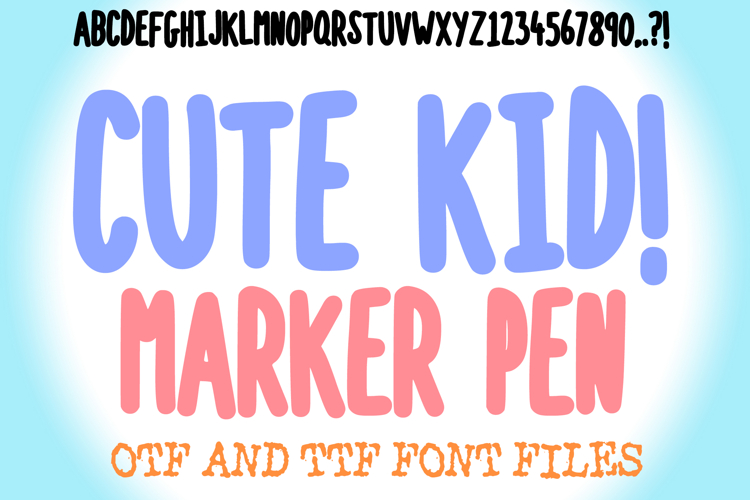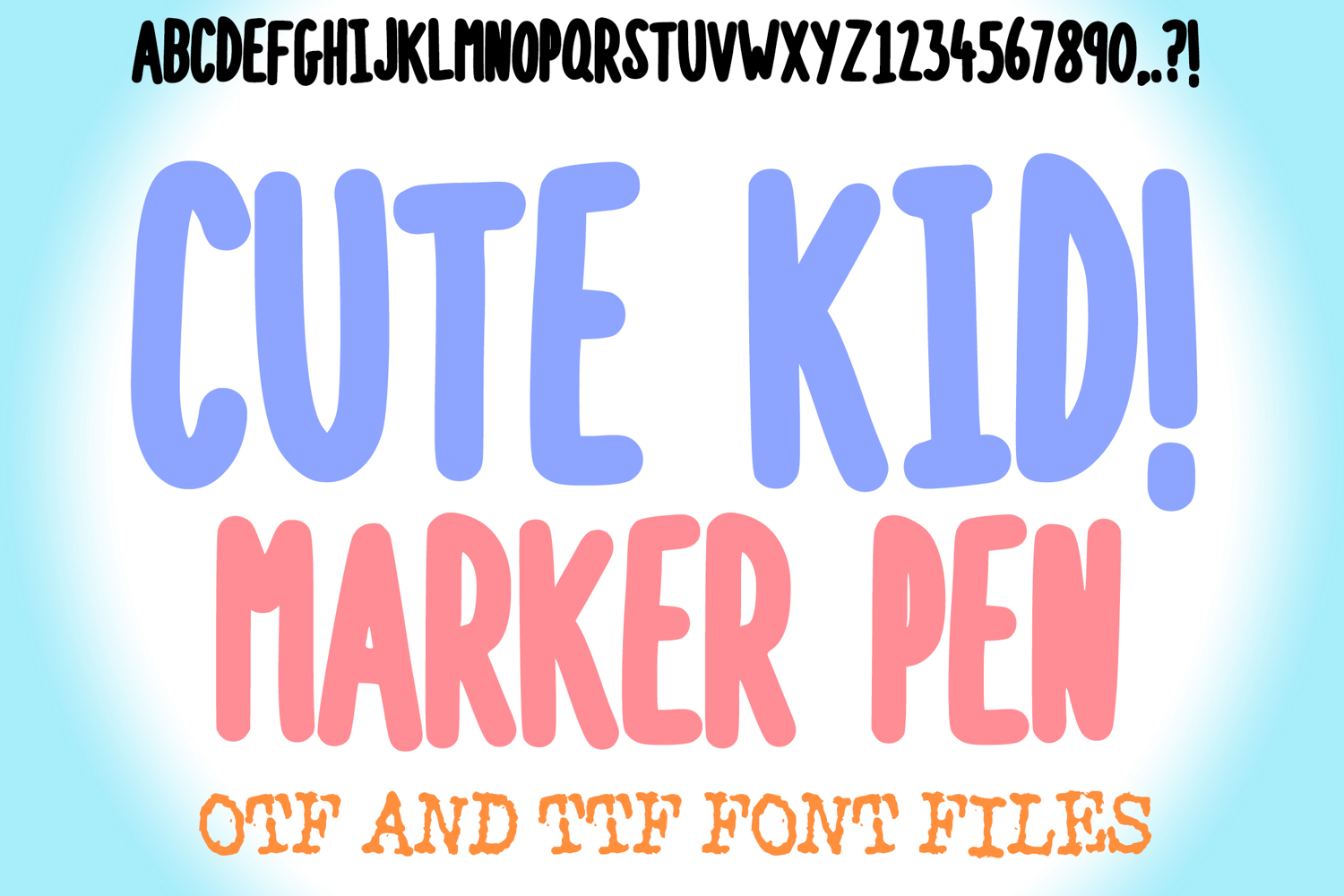
Cute Kid Marker Pen Lettering ABC Font Typeface Alphabet OTF
Unleash a wave of childlike wonder and effortless charm with Cute Kid Marker Pen Font! This delightful typeface perfectly captures the whimsical essence of a child's hand-drawn lettering, featuring friendly, rounded shapes that evoke the natural strokes of a marker pen. It's more than just a font; it's an instant burst of joy, designed to bring a touch of playful innocence and heartfelt warmth to any creative project.
Each character in Cute Kid Marker Pen Font is crafted with a clear, bold presence and a charming, slightly imperfect hand-drawn feel, as if written by a happy child. Its approachable, bubbly forms make it an ideal choice for children's books, nursery decor, educational materials, playful branding, greeting cards, or any design calling for a unique blend of simplicity and cuteness.
Whether you're creating invitations for a birthday party, designing labels for kid-friendly products, crafting cheerful social media posts, or adding a friendly touch to classroom resources, this font will bring an undeniable sense of fun and originality to your work. Its clear yet playful forms ensure readability while delivering a memorable visual experience.
If you're looking to infuse your designs with a sense of playful wonder, charming cuteness, and an undeniable happy vibe, Cute Kid Marker Pen Font is your ultimate tool. Grab your markers and let your creativity flow!